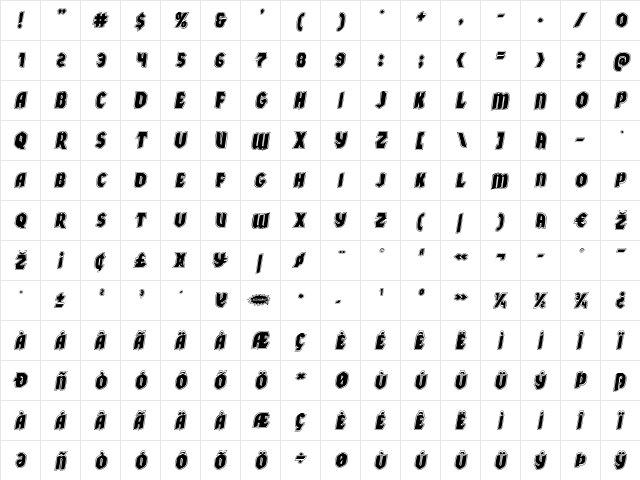
Xmas Xpress Academy Italic Italic
Design Context for Xmas Xpress Academy Italic Typeface
Xmas Xpress Academy Italic is a composed and adaptable typeface that performs quietly and consistently across a wide range of design contexts. The dynamic lean of this cut emphasises speed and emphasis in any layout.
Pro Tip: Try Xmas Xpress Academy Italic for annotation and caption copy alongside an upright companion — the contrast in angle creates a dynamic but ordered typographic system.